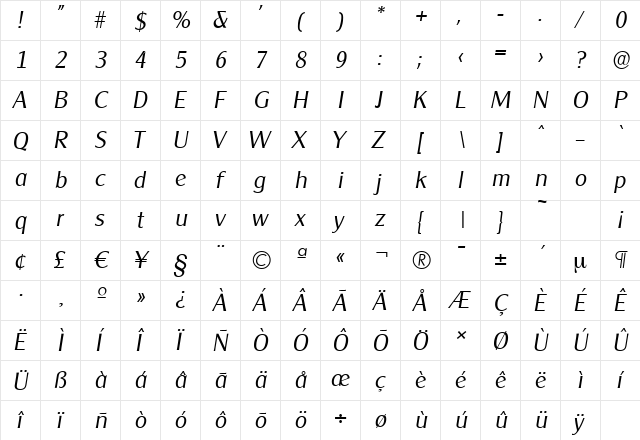
ClearGothicSerial-Light Italic Font Preview
Design Context for ClearGothicSerial-Light Typeface
ClearGothicSerial-Light has the quiet confidence of well-executed sans-serif typography: versatile, unobtrusive, and dependable at any size. The dynamic lean of this cut emphasises speed and emphasis in any layout. Its slender proportions lend an understated elegance to any composition.
A natural fit for high-end product packaging, luxury brand identities, and refined web typography.
Font Pairing: Pair ClearGothicSerial-Light with a medium or bold serif for headlines — the weight contrast creates an elegant, high-end feel.
Pro Tip: Use ClearGothicSerial-Light with generous tracking and line-height for the most luxurious effect — light sans-serifs reward spacious, considered layouts.